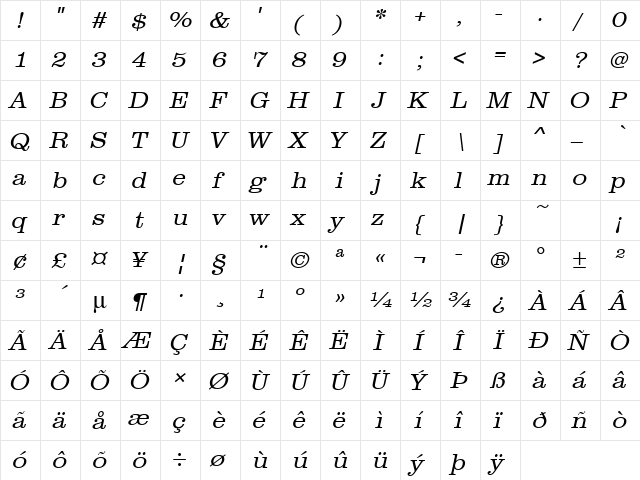
URWClarendonTLigWid Oblique
Design Context for URWClarendonTLigWid Typeface
URWClarendonTLigWid features prominent, blocky serifs that give it a confident, grounded presence — equally at home in editorial settings and bold branding work. The dynamic lean of this cut emphasises speed and emphasis in any layout.
Works well in editorial design, news publishing, impactful branding, and poster typography.
Pro Tip: Try URWClarendonTLigWid set tight in headlines for a classic editorial feel. Its slab serifs create strong horizontal rhythm that anchors a page layout.